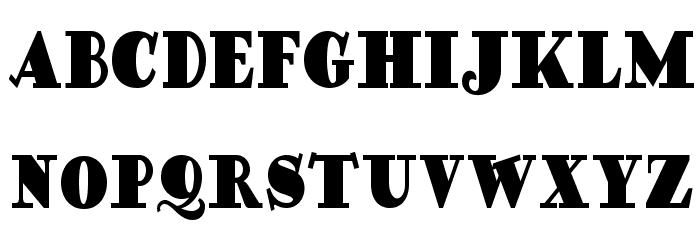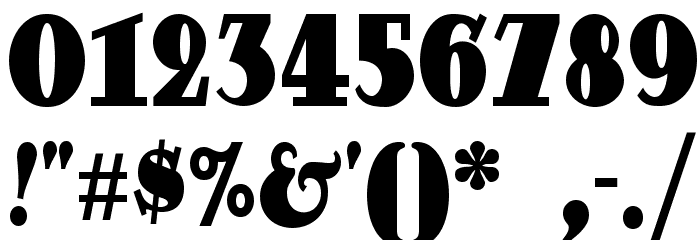
Ding Dong Daddyo NF Font
This font exudes a bold and playful character, with a distinct vintage flair. The uppercase letters are robust and commanding, featuring exaggerated serifs that add a touch of whimsy. The lowercase letters maintain a consistent weight, offering a harmonious balance with the uppercase. Numbers are equally bold, ensuring clarity and impact. Special characters are creatively styled, enhancing the font's overall decorative appeal. The font's high contrast in stroke thickness contributes to its dynamic and eye-catching appearance, making it ideal for projects that require a retro or nostalgic touch.
A bold, vintage-style font with playful serifs and high contrast.
- Proposed Projects: Perfect for retro-themed posters, vintage branding, playful packaging designs, and eye-catching headlines.
- Overall Style: Vintage